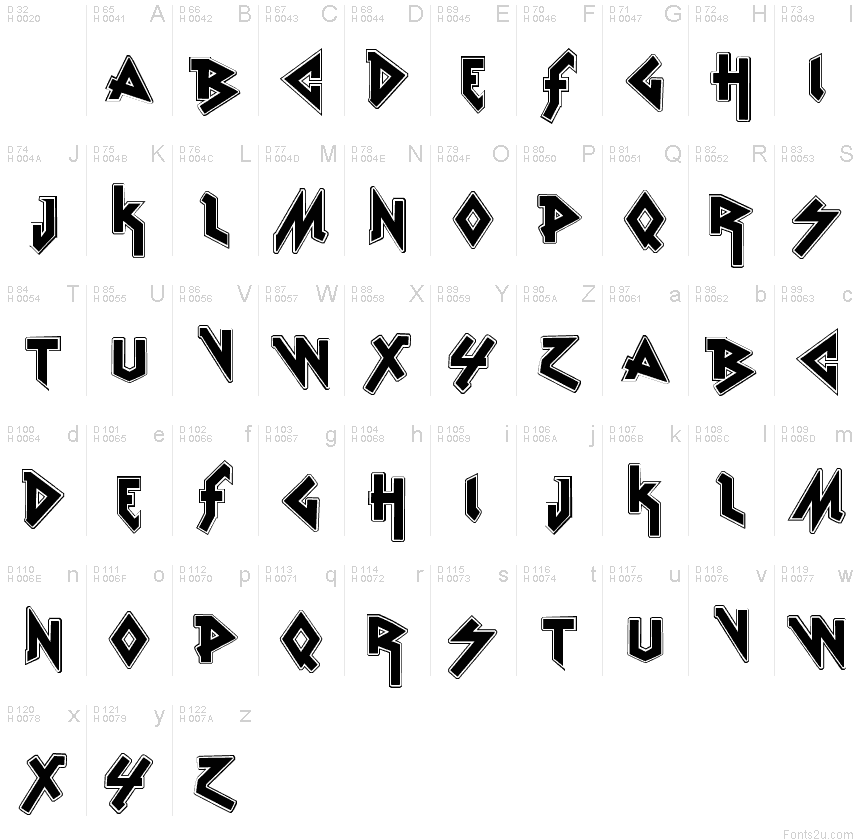
vtks Rude Metal Shadow by Douglas Vitkauskas is a free futuristic outlined display font built from sharply cut, interlocking capitals. The uneven angles give the lettering a hand-drawn metal-logo edge. Offset contours and deep block shadows make each form look layered and dimensional.
Its jagged silhouettes echo lightning, machinery, and sci-fi illustration, which makes the font useful for album packaging, game graphics, and concert merchandise. In publishing, those cutout shapes suit dramatic heavy-metal magazine cover lines and comic book features, where the letters can function almost like drawn emblems.